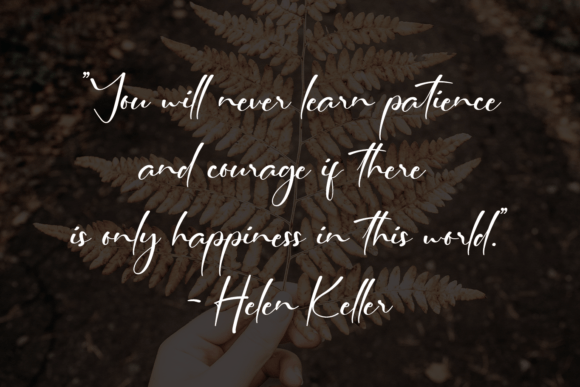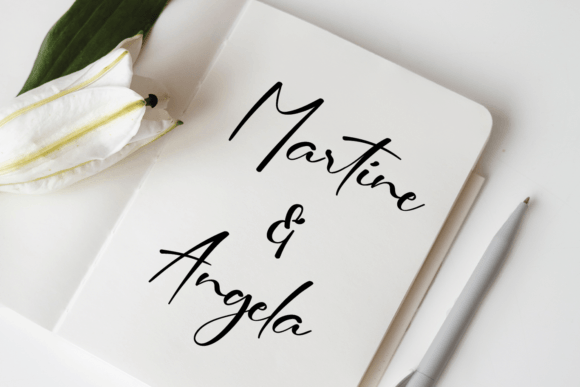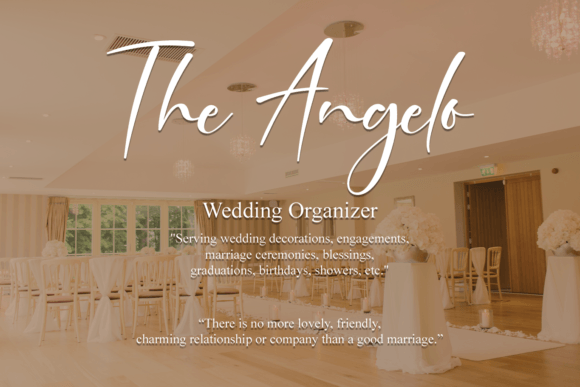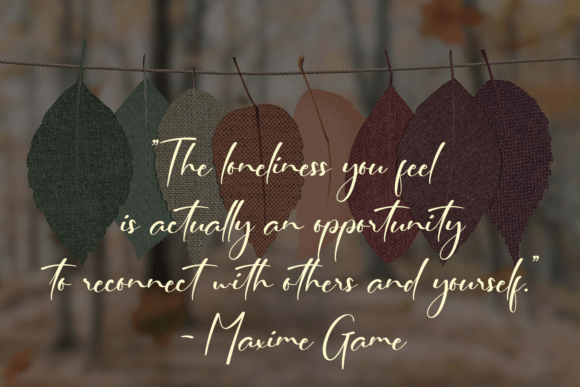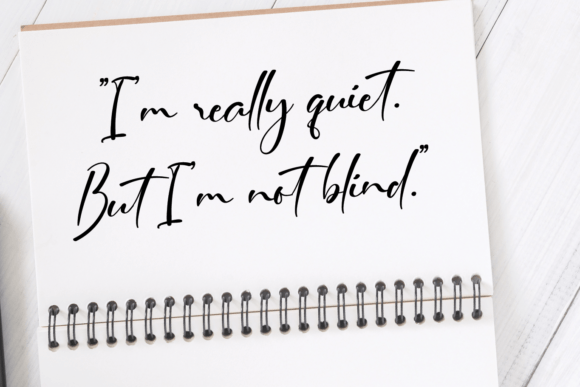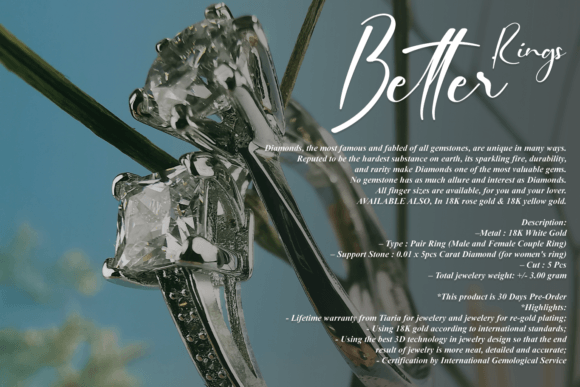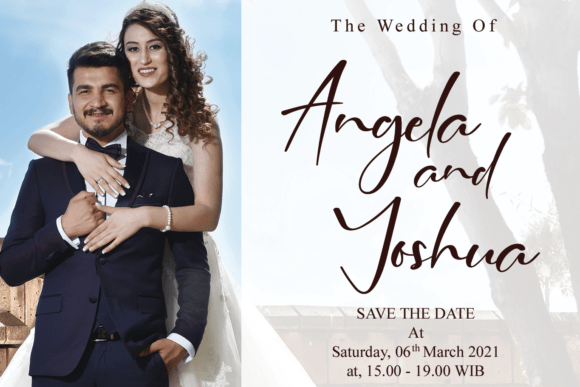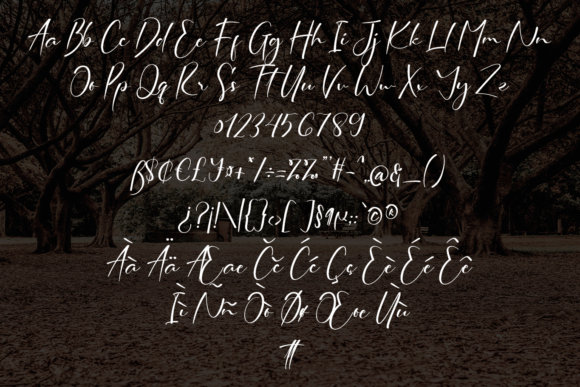
Autumn Font
About Autumn Font
Autumn is not just a font; it’s a symphony of beauty and refinement, meticulously crafted into a script font. With its inherently classy, elegant, and modern aesthetic, Autumn emerges as a versatile design tool that transcends mere typeface. This font possesses the power to elevate your creative projects to new heights of sophistication. Its graceful curves and artistic flair make it an ideal choice for logos, branding, invitations, stationery, wedding designs, social media posts, and a myriad of other design applications.
What distinguishes Autumn is its ability to seamlessly combine timeless beauty with contemporary elegance. The font exudes an aura of charm and sophistication that can transform the impact of your designs. Its classical yet modern design is perfectly balanced, making it a versatile choice for a wide spectrum of design projects.
In the realm of branding and logo design, Autumn stands as a symbol of enduring grace and refinement. It adds a distinctive touch that sets your brand apart, leaving an indelible mark in the minds of your audience. Invitations and stationery acquire an unparalleled level of elegance with the font’s graceful script, setting the stage for memorable events.
Wedding designs find their perfect companion in Autumn, where the font infuses romantic and timeless beauty into every element. For social media posts, Autumn adds an air of sophistication, making your content not only visually appealing but also engaging. Its adaptability allows it to flourish in diverse design endeavors.
Autumn’s versatility is one of its most remarkable qualities. It effortlessly transitions from a formal and polished tone to a more casual and approachable one, ensuring that it fits seamlessly into various creative projects. Whether your design calls for a traditional or contemporary feel, Autumn answers with elegance.
In summary, Autumn is not just a font; it’s a design asset that encapsulates beauty and refinement in every curve and stroke. Its unique blend of timeless charm and contemporary elegance sets it apart as an essential tool for anyone looking to make a lasting impression through their visual communication. Embrace the grace of Autumn, and watch your creative projects bloom into sophisticated works of art.